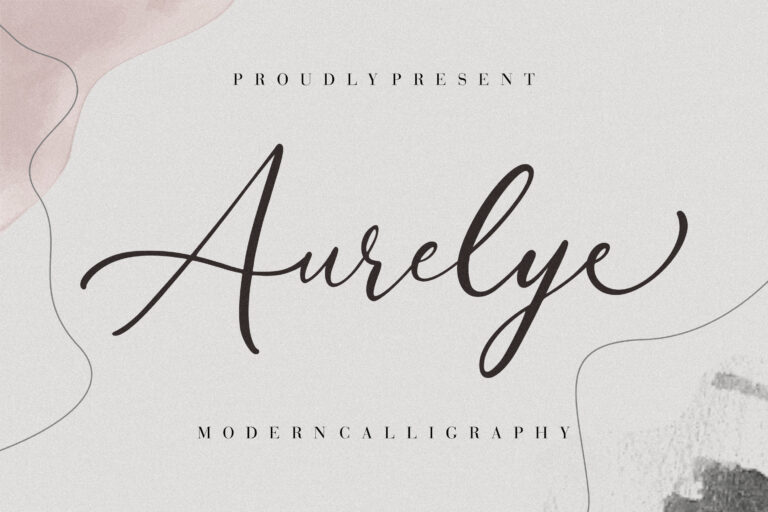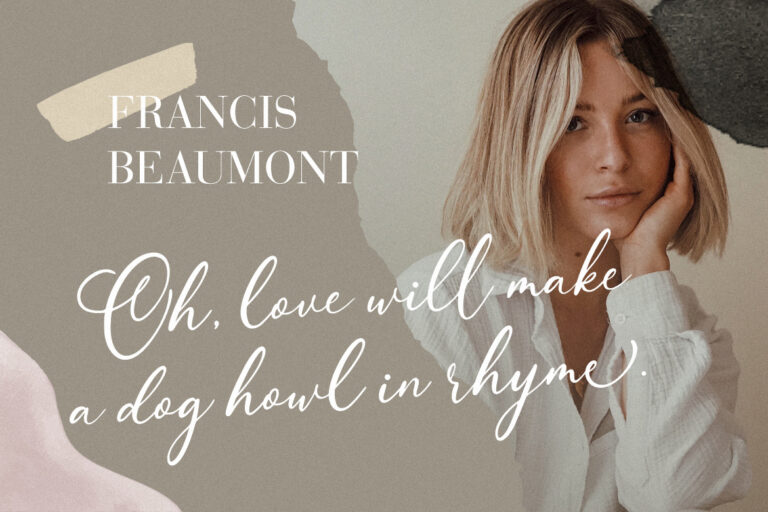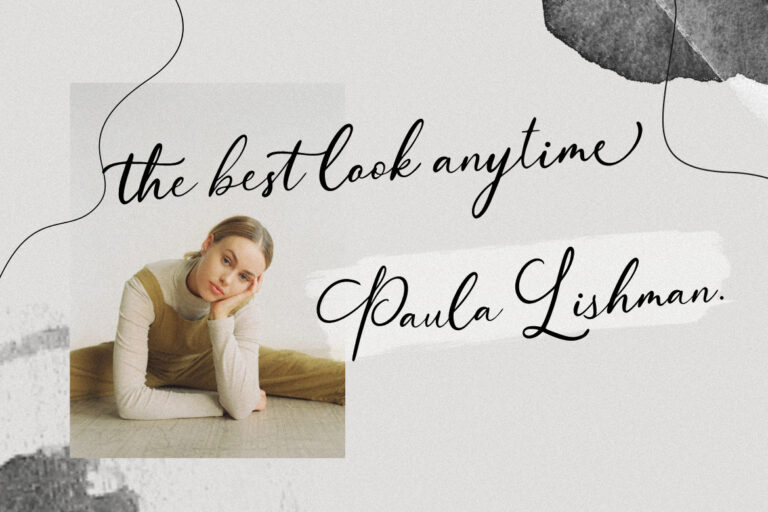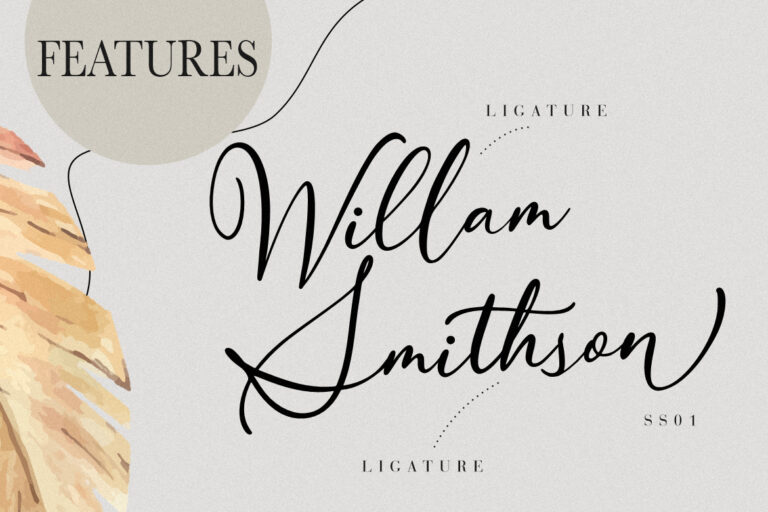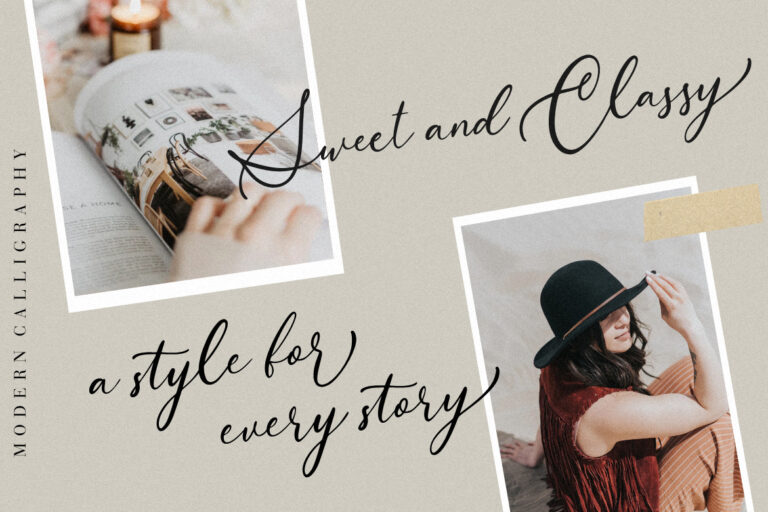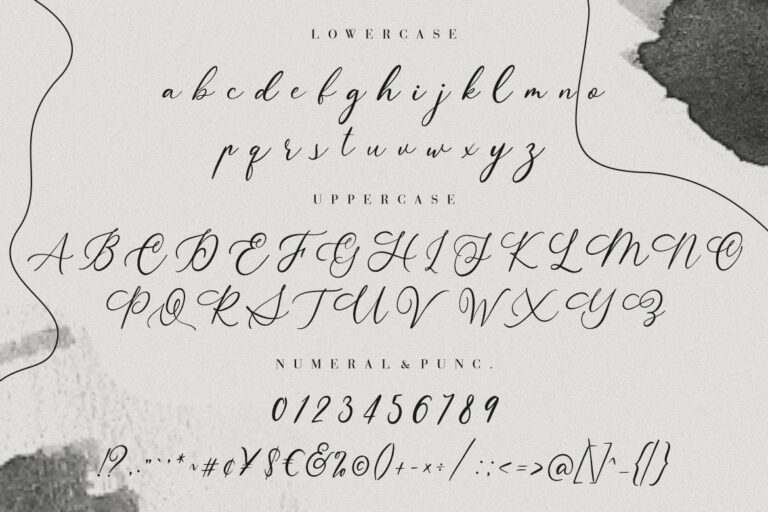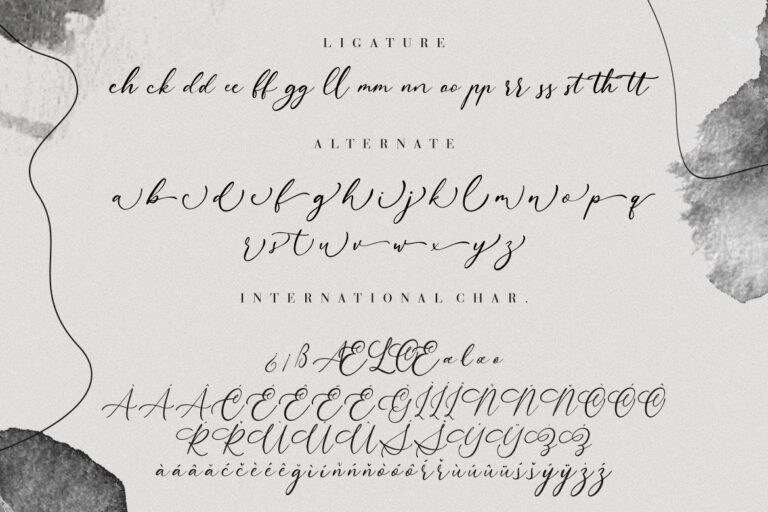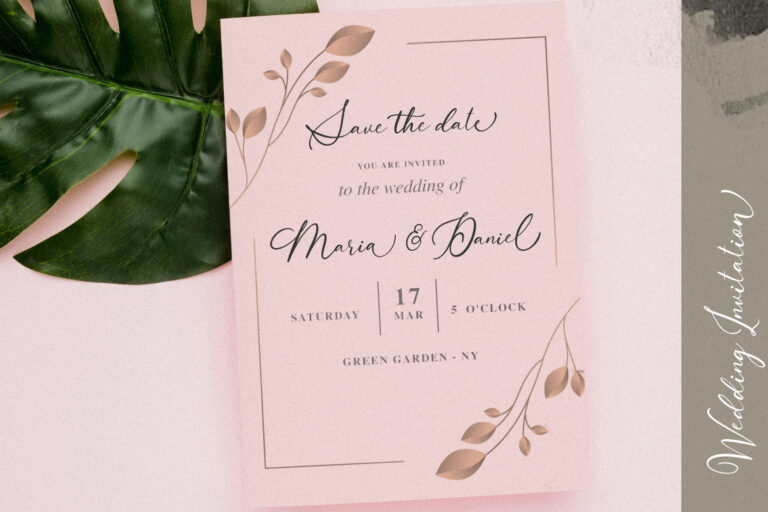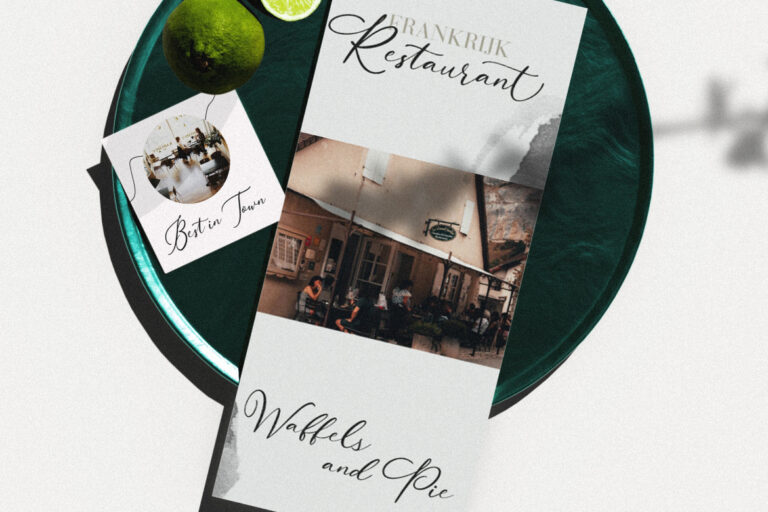
Aurelye is modern calligraphy font with lots of stylish alternative and ligature glyphs.
Aurelye is perfect for branding projects, logo, wedding designs, social media posts, advertisements, product packaging, product designs, label, photography, watermark, invitation, stationery and any projects that need handwriting taste.
Aurelye Modern Calligraphy